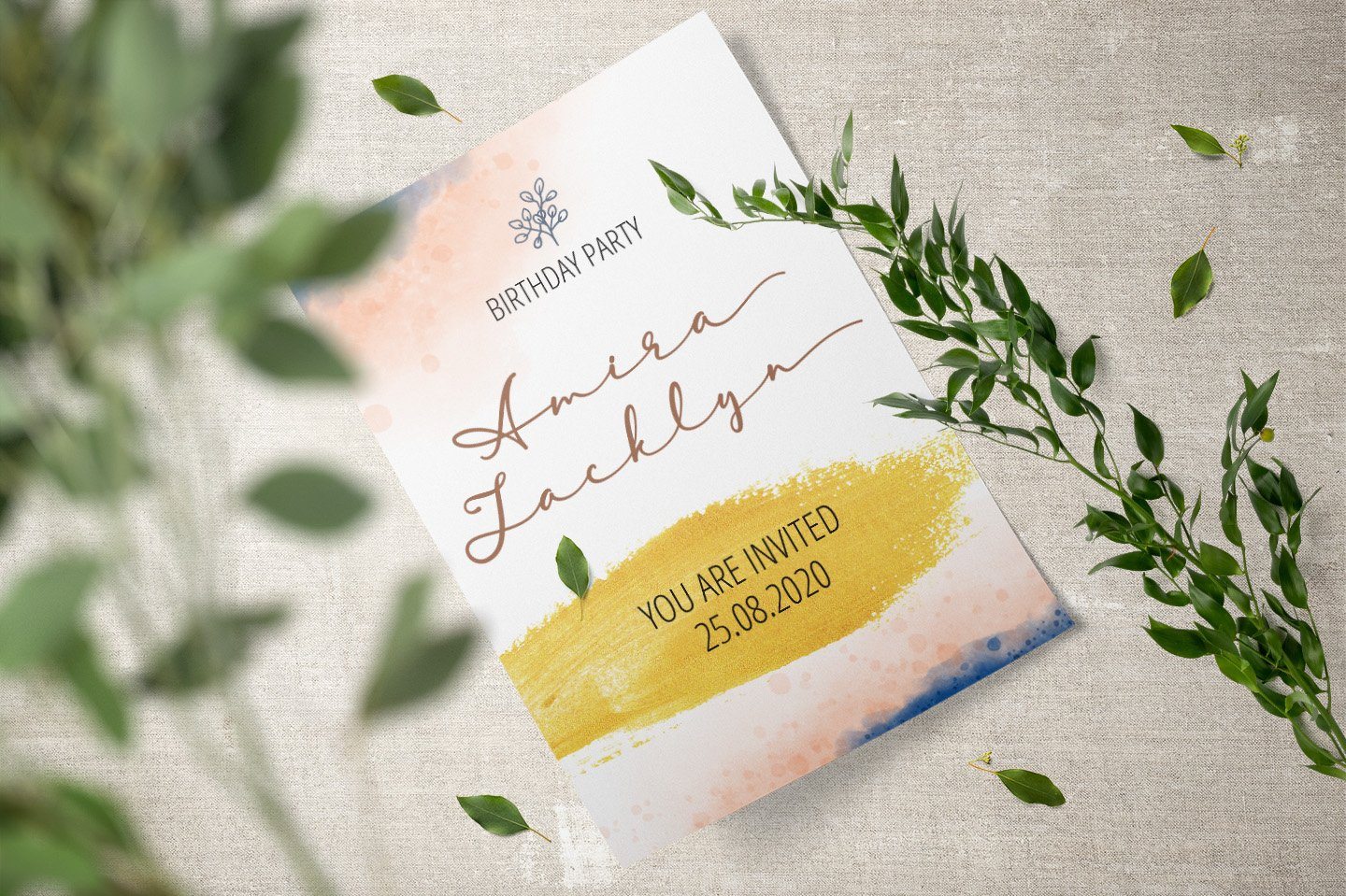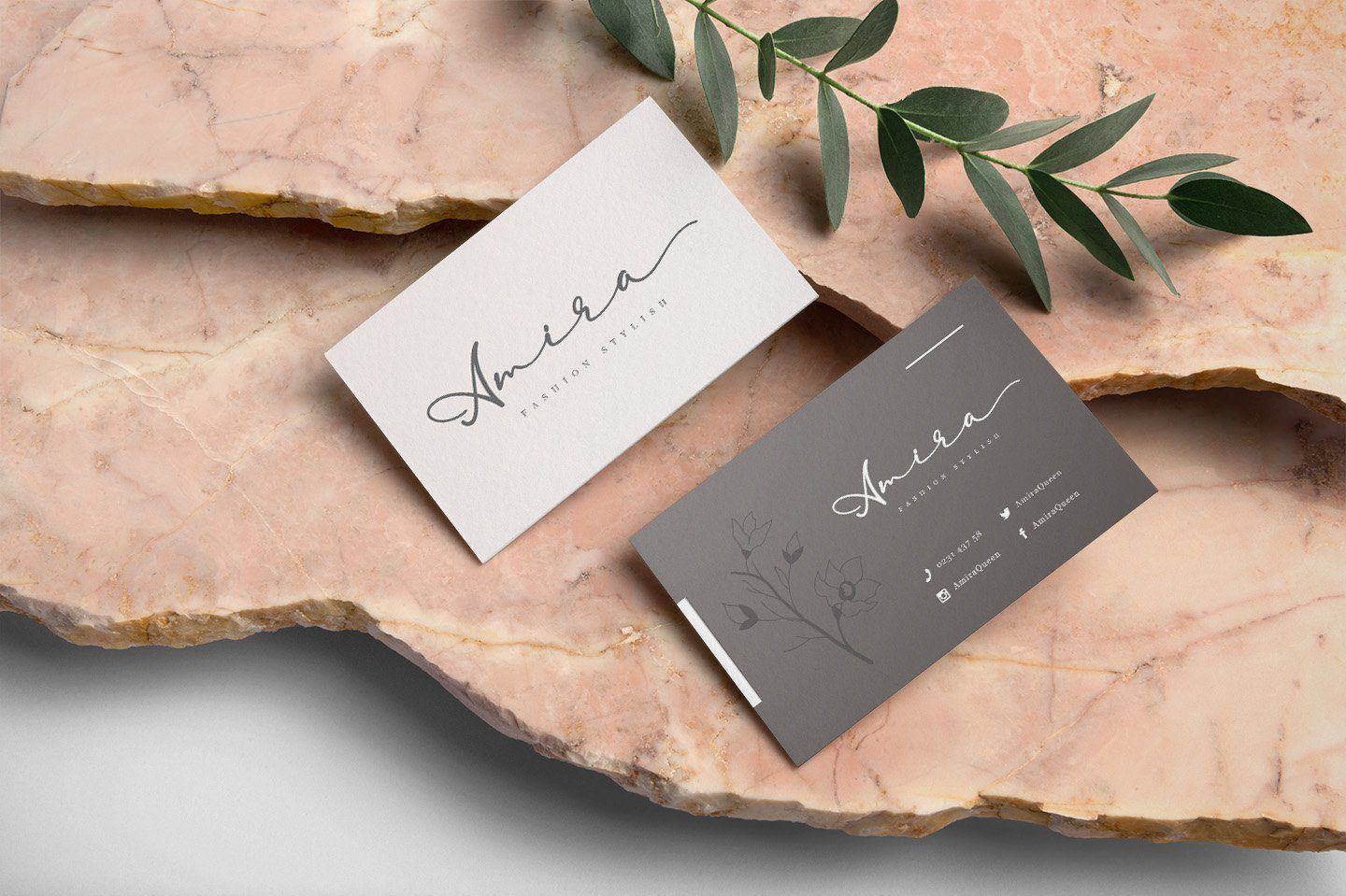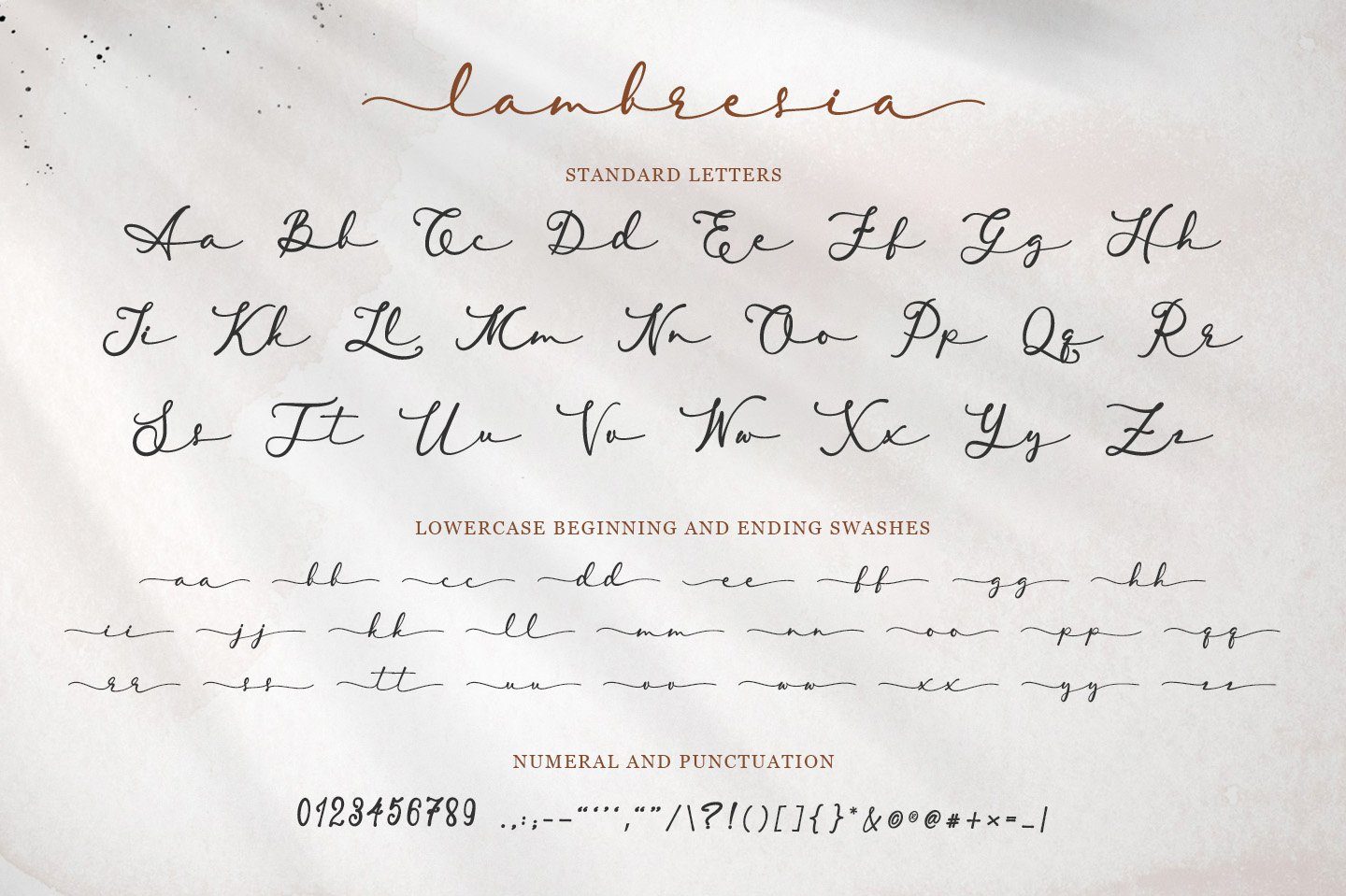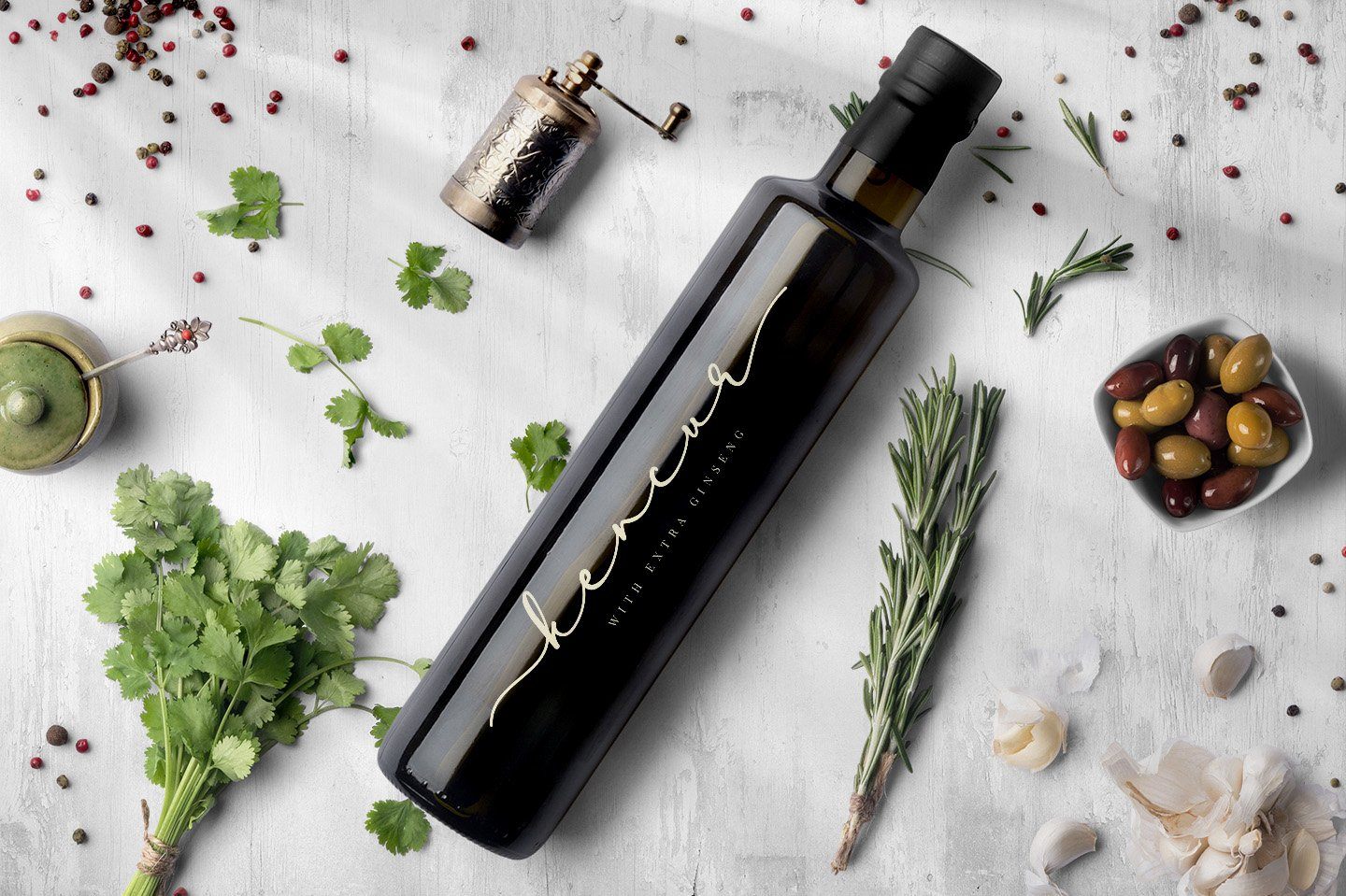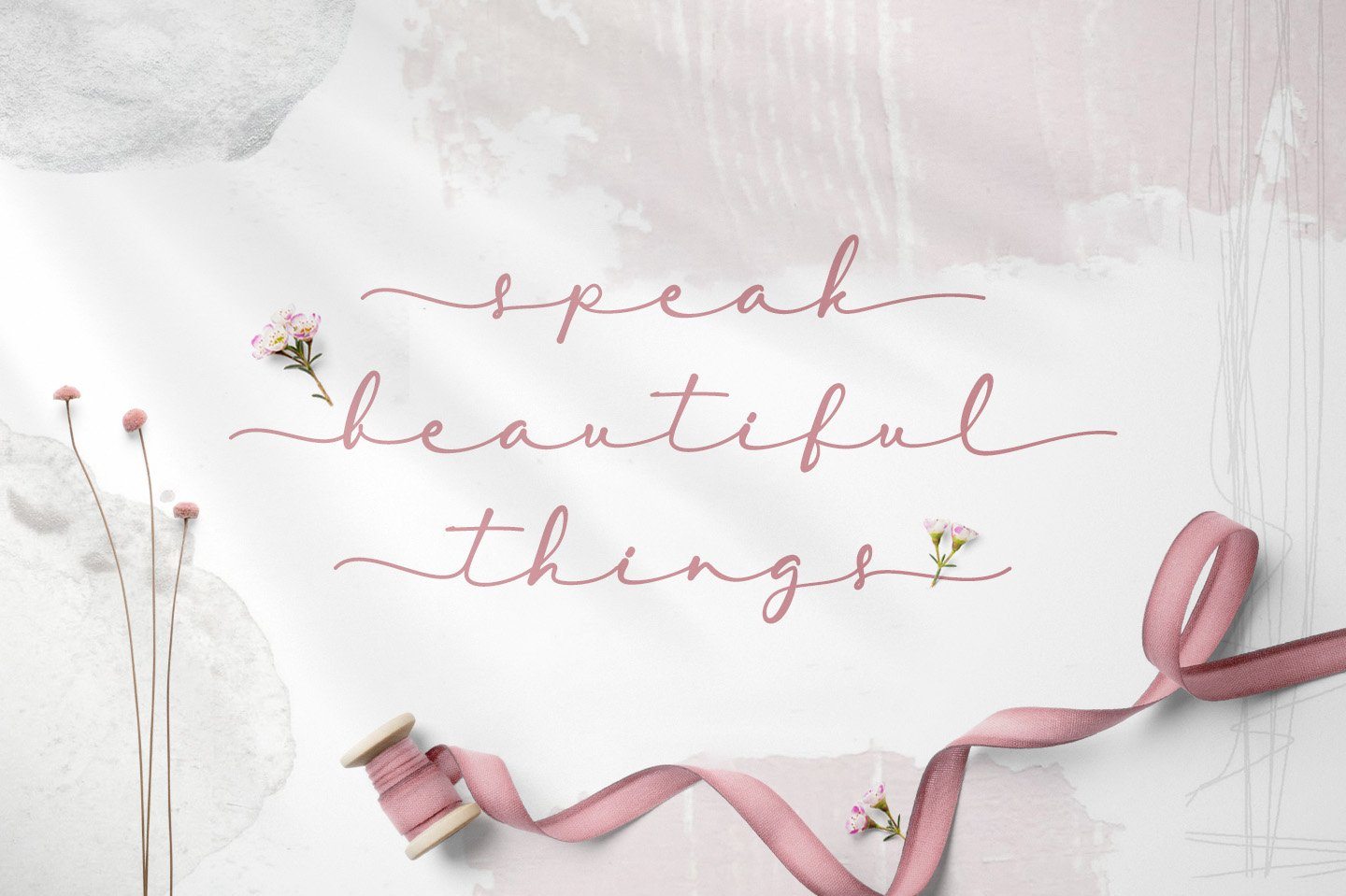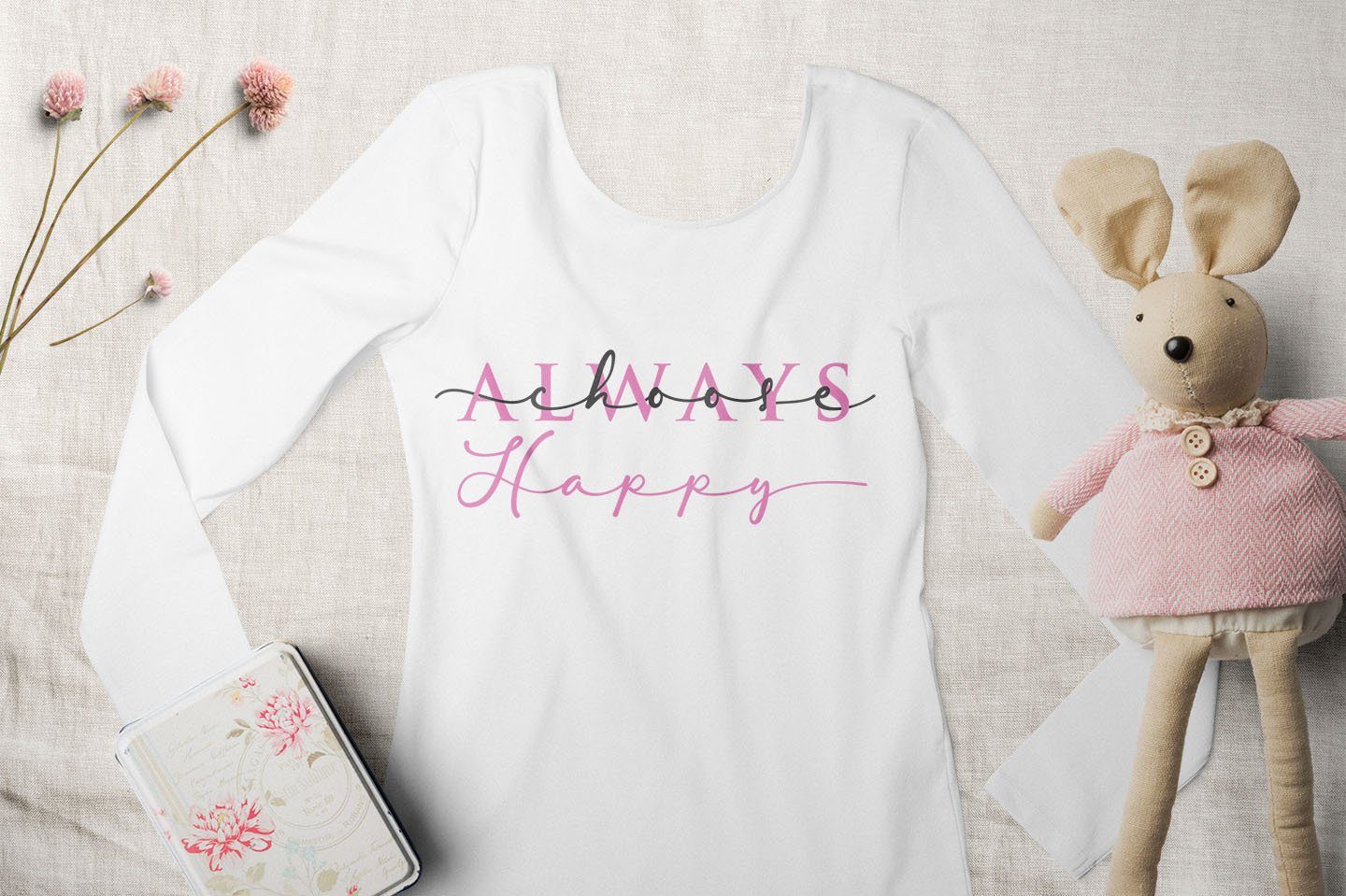
Lambresia Script
About Lambresia Script
Lambresia is a handwritten script with a natural & stylish flow. This font has a multitude of natural looking ligatures in its OpenType features – making the font look as close to natural handwriting as possible. This collection of scripts is perfect for personal branding. Lambresia Font is perfect for many different projects such as logos & branding, invitation, stationery, wedding designs, social media posts, advertisements, product packaging, product designs, label, photography, watermark, special events or anything. What’s Included: Lambresia.ttf, Lambresia.otf, and Lambresia.woff Lambresia includes capital and lowercase letters, alternates, and Ligatures Numbers + punctuation Foreign language support I highly recommend using a program that supports OpenType features and Glyphs panels such as Adobe Illustrator, Adobe Photoshop CC, Adobe InDesign, or CorelDraw, so you can see and access all Glyph variations. This font is encoded with Unicode PUA, which allows full access to all additional characters without having special design software. Mac users can use Font Book, and Windows users can use Character Map to view and copy one of the extra characters to paste into your favorite text editor/application. We hope you enjoy the font, please feel free to comment if you have any thoughts or feedback. Or simply send me a PM or email me. Thanks for purchasing and have fun!